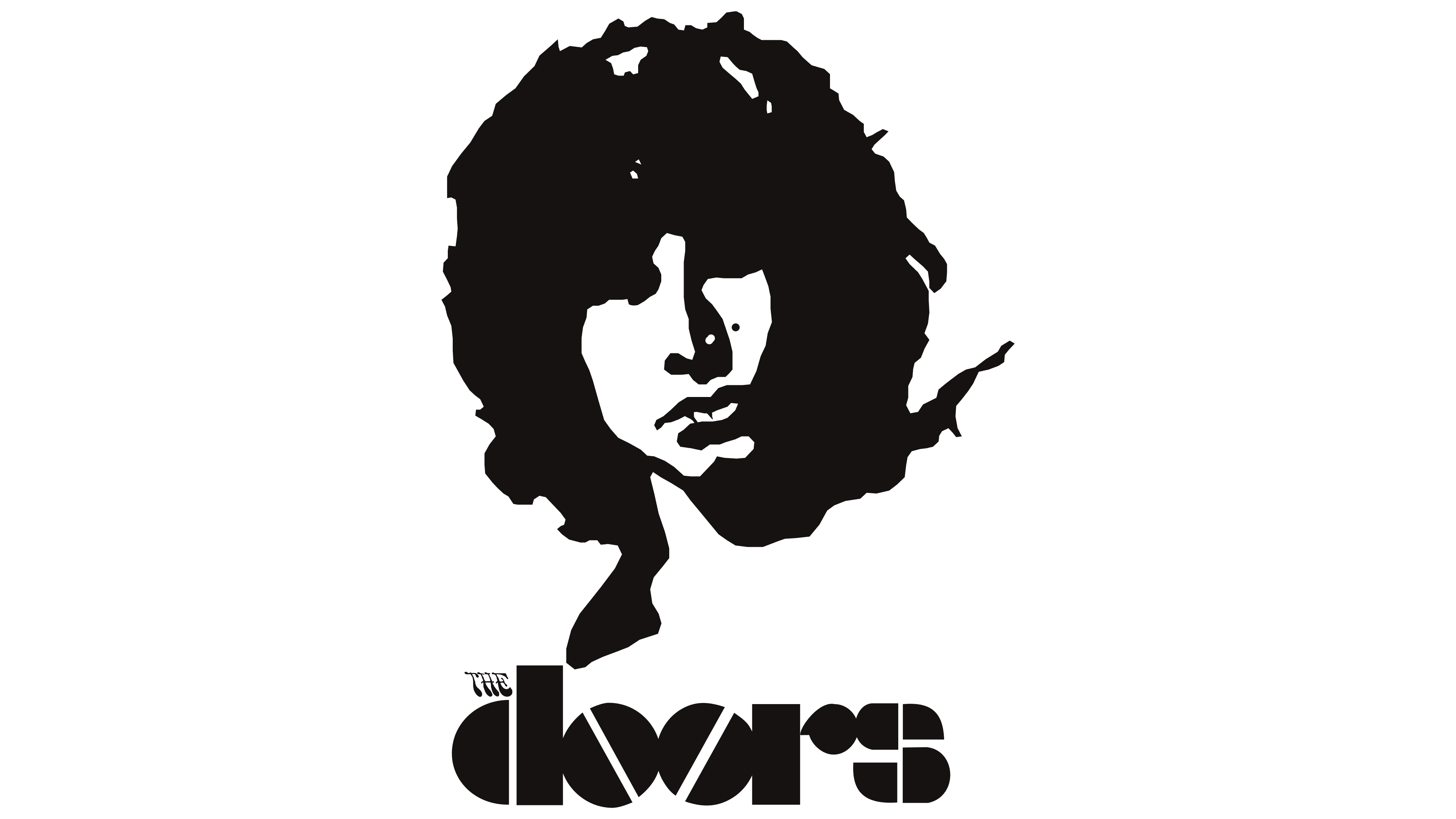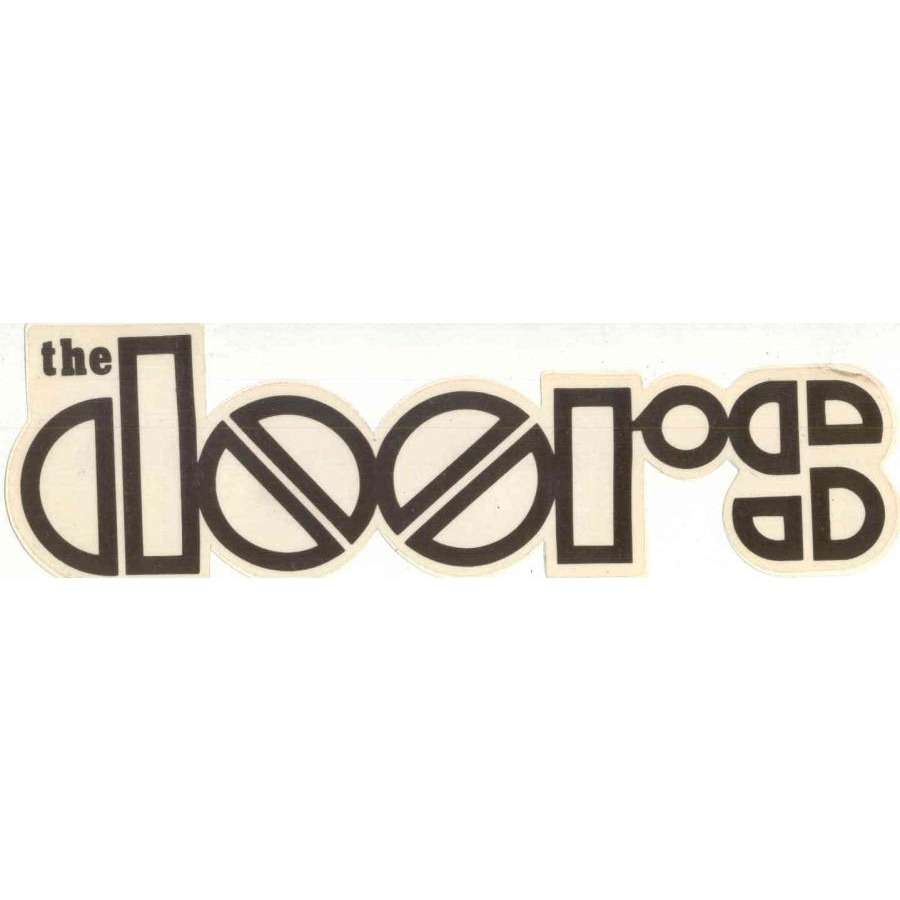
The Doors Logo Font . The geometric “doors” lettering is very similar to a font called densmore designed by typodermic. Learn about the band's history, style, and legacy in the music industry. Its the closest youll get. Download a free font based on the logo from the music group the doors. The iconic logo of the doors, first appeared on the cover of their self titled debut album and then on the cover of 1968 album waiting for the sun, is one of the most famous band logos due to the employment of. The font is free to. Hit the generate button and your logo/image is created and ready to download. Explore the iconic jim morrison logo of the doors, a band from venice, california. They just made the logo themselves. In the upper left of the logo is the tiny yet essential “the” in art nouveau style. Enter your text, select a font, choose a font size, and pick your favorite colors. The iconic logo of the doors, first appeared on the cover of their self titled debut album and then on the cover of 1968 album waiting for. 4.6k subscribers in the robloxdoors community. Use our free the doors font generator tool below to create your own custom design logo or image. It does not have a font.
Learn about the band's history, style, and legacy in the music industry. Hit the generate button and your logo/image is created and ready to download. The geometric “doors” lettering is very similar to a font called densmore designed by typodermic. Enter your text, select a font, choose a font size, and pick your favorite colors. The font is free to. 4.6k subscribers in the robloxdoors community. Use our free the doors font generator tool below to create your own custom design logo or image. Its the closest youll get. Explore the iconic jim morrison logo of the doors, a band from venice, california. They just made the logo themselves.
The Doors Logo Font Explore the iconic jim morrison logo of the doors, a band from venice, california. The geometric “doors” lettering is very similar to a font called densmore designed by typodermic. Hit the generate button and your logo/image is created and ready to download. The iconic logo of the doors, first appeared on the cover of their self titled debut album and then on the cover of 1968 album waiting for the sun, is one of the most famous band logos due to the employment of. They just made the logo themselves. Enter your text, select a font, choose a font size, and pick your favorite colors. Download a free font based on the logo from the music group the doors. It does not have a font. The font is free to. Its the closest youll get. The iconic logo of the doors, first appeared on the cover of their self titled debut album and then on the cover of 1968 album waiting for. Explore the iconic jim morrison logo of the doors, a band from venice, california. Use our free the doors font generator tool below to create your own custom design logo or image. Learn about the band's history, style, and legacy in the music industry. In the upper left of the logo is the tiny yet essential “the” in art nouveau style. 4.6k subscribers in the robloxdoors community.
Autocollant Morrison The Doors logo The Doors Logo Font Explore the iconic jim morrison logo of the doors, a band from venice, california. Download a free font based on the logo from the music group the doors. The iconic logo of the doors, first appeared on the cover of their self titled debut album and then on the cover of 1968 album waiting for. The iconic logo of the. The Doors Logo Font.
The Doors Logo and symbol, meaning, history, PNG, brand The Doors Logo Font Its the closest youll get. The iconic logo of the doors, first appeared on the cover of their self titled debut album and then on the cover of 1968 album waiting for. The font is free to. The geometric “doors” lettering is very similar to a font called densmore designed by typodermic. 4.6k subscribers in the robloxdoors community. Enter your. The Doors Logo Font.
Iconic Band Logos & Symbols Page 7 The Doors Logo Font The font is free to. Its the closest youll get. Enter your text, select a font, choose a font size, and pick your favorite colors. In the upper left of the logo is the tiny yet essential “the” in art nouveau style. 4.6k subscribers in the robloxdoors community. The iconic logo of the doors, first appeared on the cover of. The Doors Logo Font.
The Doors Logo valor, história, PNG The Doors Logo Font Explore the iconic jim morrison logo of the doors, a band from venice, california. Download a free font based on the logo from the music group the doors. Enter your text, select a font, choose a font size, and pick your favorite colors. The iconic logo of the doors, first appeared on the cover of their self titled debut album. The Doors Logo Font.
ROBLOX DOORS FONT YouTube The Doors Logo Font In the upper left of the logo is the tiny yet essential “the” in art nouveau style. Hit the generate button and your logo/image is created and ready to download. Its the closest youll get. It does not have a font. Download a free font based on the logo from the music group the doors. Enter your text, select a. The Doors Logo Font.
Densmore Font Download (The Doors Font) Fonts4Free The Doors Logo Font The iconic logo of the doors, first appeared on the cover of their self titled debut album and then on the cover of 1968 album waiting for the sun, is one of the most famous band logos due to the employment of. 4.6k subscribers in the robloxdoors community. They just made the logo themselves. The geometric “doors” lettering is very. The Doors Logo Font.
The Doors Logo Font 4.6k subscribers in the robloxdoors community. The iconic logo of the doors, first appeared on the cover of their self titled debut album and then on the cover of 1968 album waiting for. Hit the generate button and your logo/image is created and ready to download. Download a free font based on the logo from the music group the doors.. The Doors Logo Font.
The Doors Logo valor, história, PNG The Doors Logo Font The font is free to. In the upper left of the logo is the tiny yet essential “the” in art nouveau style. Explore the iconic jim morrison logo of the doors, a band from venice, california. It does not have a font. Download a free font based on the logo from the music group the doors. 4.6k subscribers in the. The Doors Logo Font.
The Doors Logo LogoDix The Doors Logo Font The iconic logo of the doors, first appeared on the cover of their self titled debut album and then on the cover of 1968 album waiting for. It does not have a font. Explore the iconic jim morrison logo of the doors, a band from venice, california. Its the closest youll get. Download a free font based on the logo. The Doors Logo Font.
The Doors Logo Png The Doors Logo Font Use our free the doors font generator tool below to create your own custom design logo or image. 4.6k subscribers in the robloxdoors community. They just made the logo themselves. The font is free to. The iconic logo of the doors, first appeared on the cover of their self titled debut album and then on the cover of 1968 album. The Doors Logo Font.